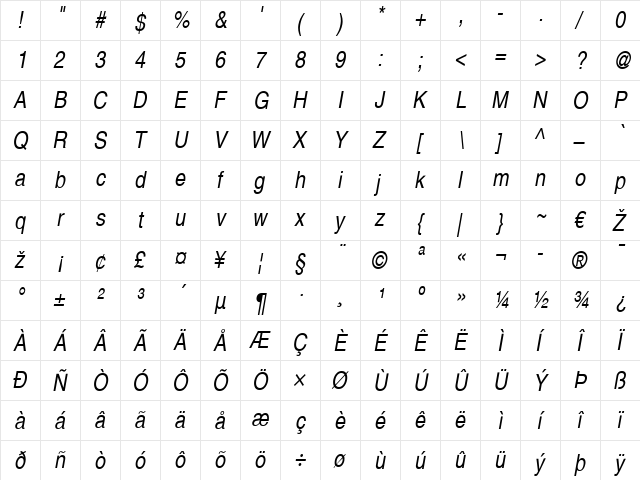
Helvetica LT Narrow Italic Font Preview
Design Context for Helvetica LT Narrow Typeface
Helvetica LT Narrow is a composed and adaptable typeface that performs quietly and consistently across a wide range of design contexts. Its italic angle brings a sense of urgency and motion to the letterforms. The delicate stroke weight brings airiness and refinement to layouts. The condensed width makes it efficient for tight spaces without sacrificing legibility.
Pro Tip: Use Helvetica LT Narrow for emphasis, pull quotes, and subheadings where its slanted energy can add rhythm to the layout.